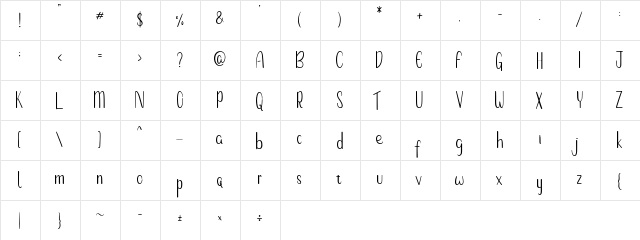
Rosalina Regular
| Designer | Under21 2019 |
Design Context for Rosalina Typeface
Rosalina is a composed and adaptable typeface that performs quietly and consistently across a wide range of design contexts.